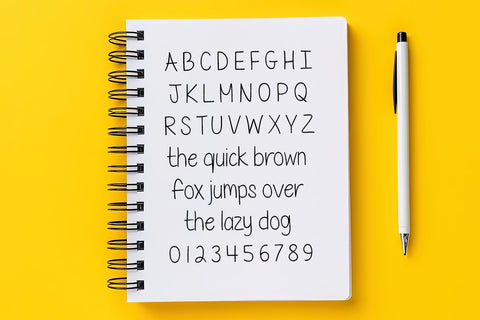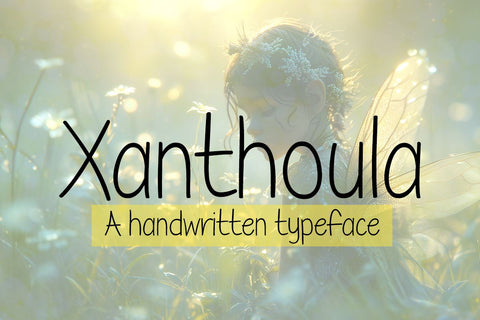
Xanthoula
Introducing Xanthoula: the epitome of simplicity and elegance in handwritten font design. Xanthoula emerges as a breath of fresh air in the realm of typography, offering a delicate and refined touch to any project it graces. Designed with legibility at its core, this font marries the personal touch of handcrafted artistry with the clarity and accessibility needed in today’s fast-paced world.